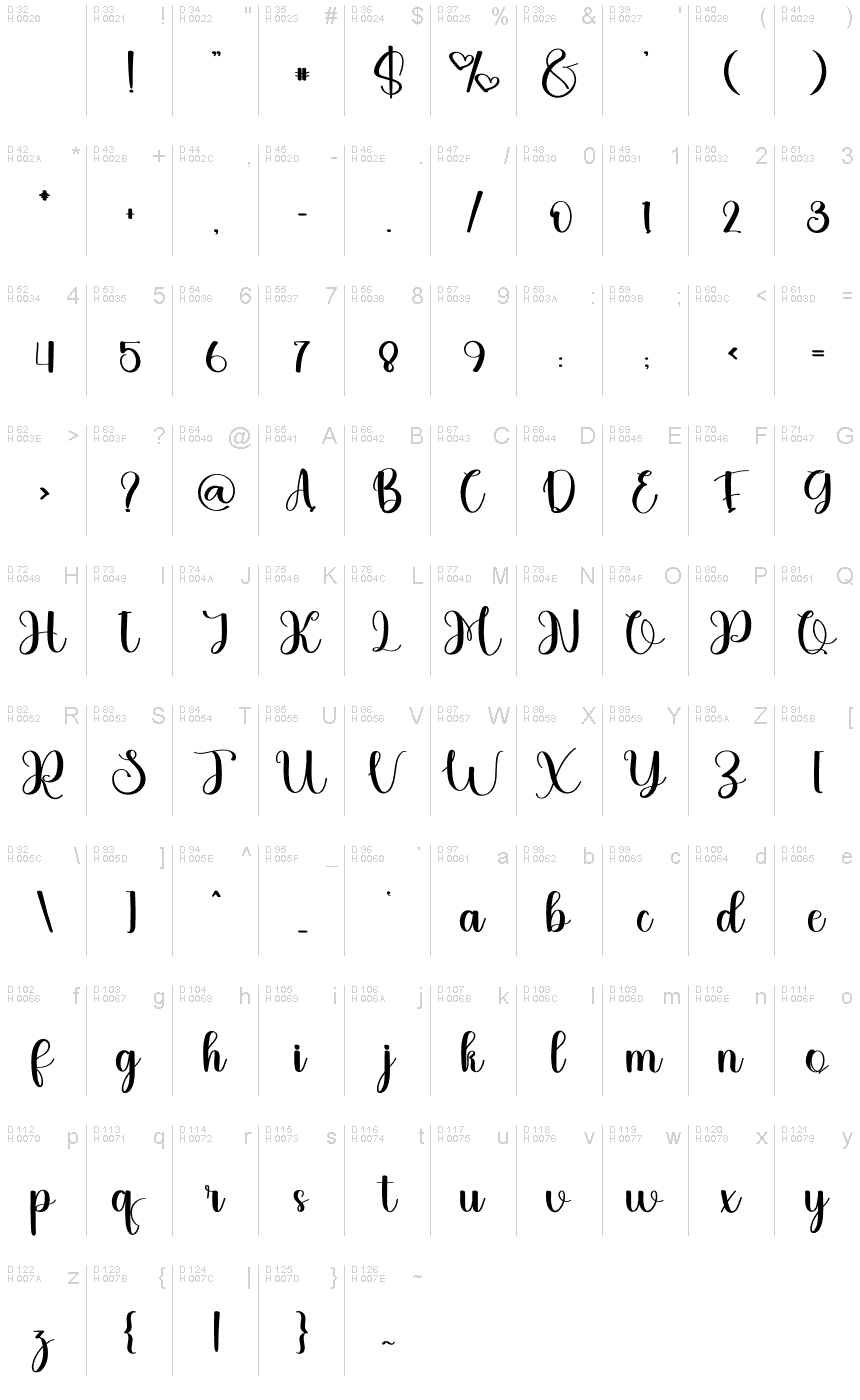
Fallin Simple
Fallin Simple emerges from the creative studio of FreshtypeINK as a semi-light calligraphy font that effortlessly marries elegance with simplicity. Its fluid, cohesive strokes mimic the grace of hand-lettering, providing an aesthetic that is both personal and polished. The gentle flow of the letters in Fallin Simple lends it an air of sophistication, making it an ideal choice for invitations, branding, and advertising where a touch of finesse is desired.
Despite its classic calligraphic roots, this font holds a modern sensibility that enables versatile application across various mediums—be it digital graphics or print materials. With its semi-light weight, Fallin Simple strikes a perfect balance between readability and decorative flair. Whether used for elaborate headlines or as subtle text accents, Fallin Simple is poised to elevate creative projects with its distinct charm and stylish allure.